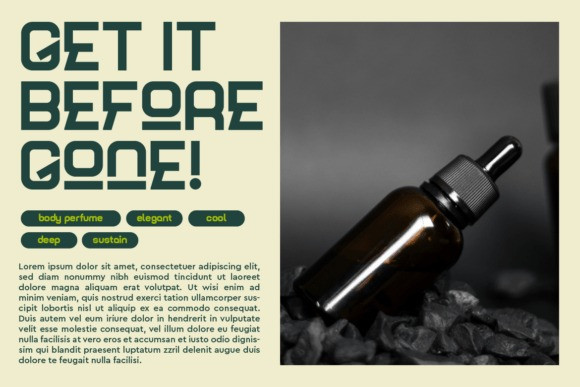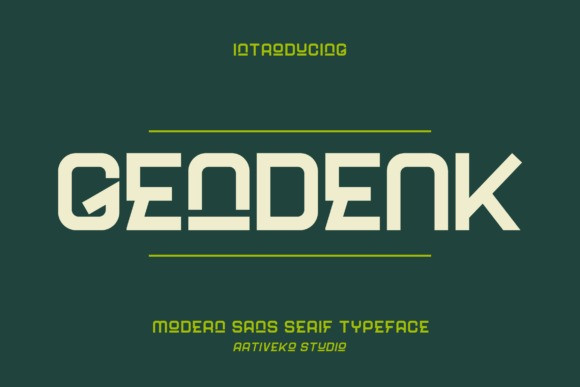
Gendenk Font
Gendenk Font is a clean and contemporary sans serif font designed to combine strength with modern minimalism. Its geometric shapes, smooth curves, and balanced spacing create a versatile typeface that works beautifully for branding, editorial design, digital content, packaging, and social media graphics.